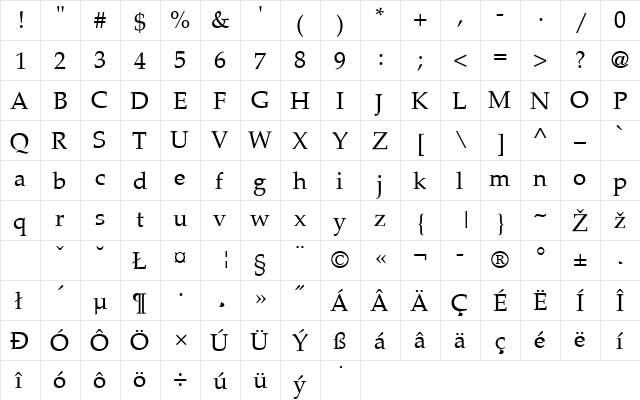
PaltusAntNo3LEE Regular Font Preview
PaltusAntNo3LEE Regular
Design Context for PaltusAntNo3LEE Typeface
PaltusAntNo3LEE offers clean, dependable letterforms without strong stylistic allegiance, making it a practical choice for designers who need flexibility.